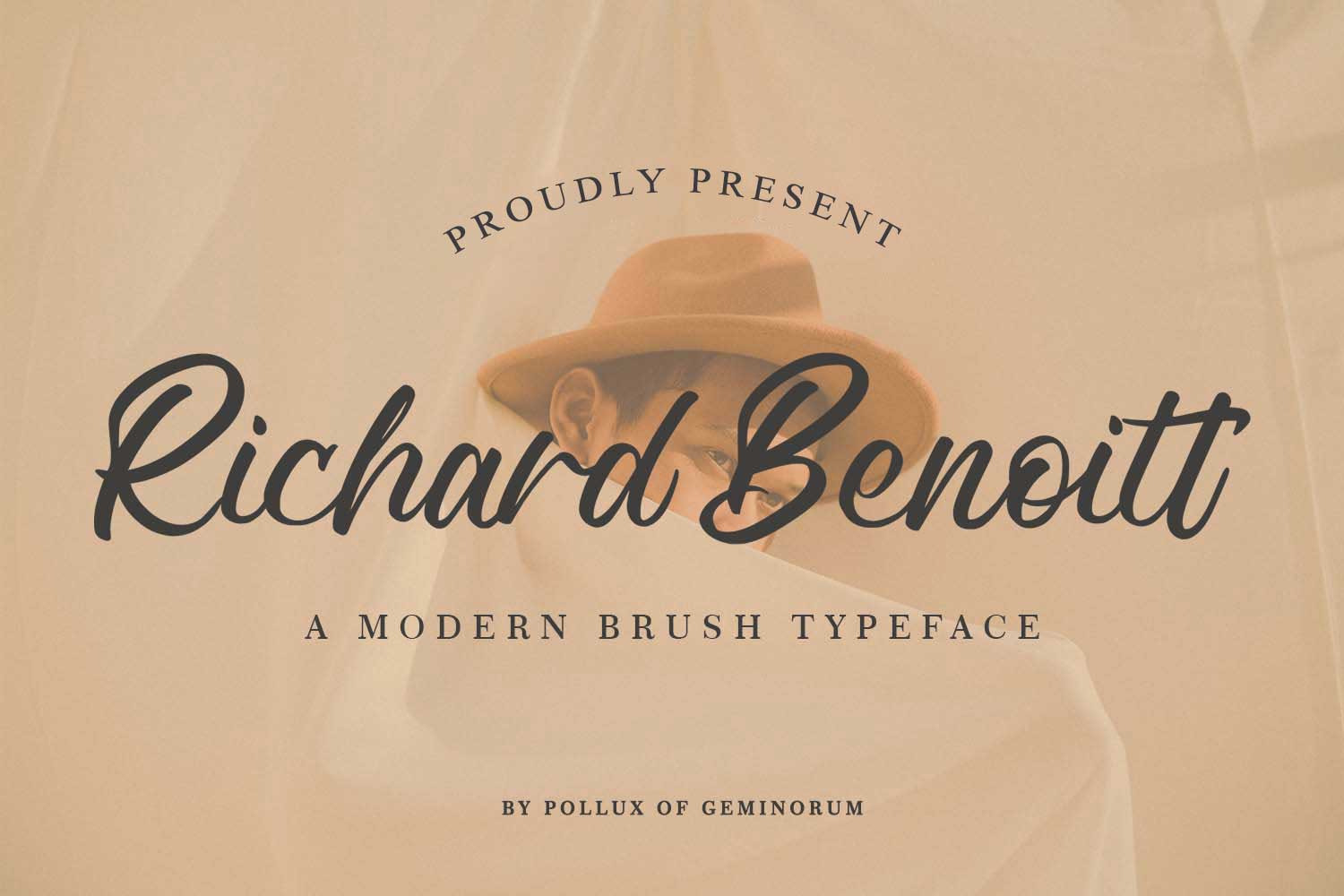
Richard Benoitt - Modern Script Font
Infuse your designs with effortless elegance and a touch of modern sophistication with Richard Benoitt, a chic script font designed for high-end aesthetics. With its fluid, natural strokes and graceful flow, this typeface captures the essence of contemporary luxury.
Richard Benoitt is the ultimate choice for creators who want to leave a lasting impression. Whether you are crafting a signature logo for a beauty brand, designing romantic wedding invitations, or curating an aesthetic Instagram feed, this font provides the perfect balance of personality and professional polish.
Key Highlights:
- Elegant Flow: Seamless connections and natural-looking strokes for a hand-written feel.
- Chic Versatility: Optimized for cosmetic branding, fashion editorials, and lifestyle products.
- Creative Swashes: Packed with stylistic alternates and ligatures to create unique typographic layouts.
- Standard Uppercase & Lowercase
- Stylistic Alternates & Elegant Ligatures